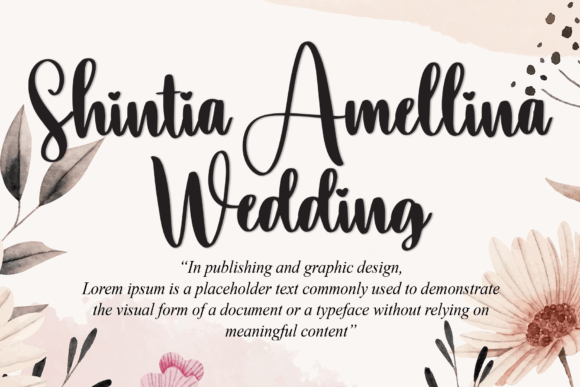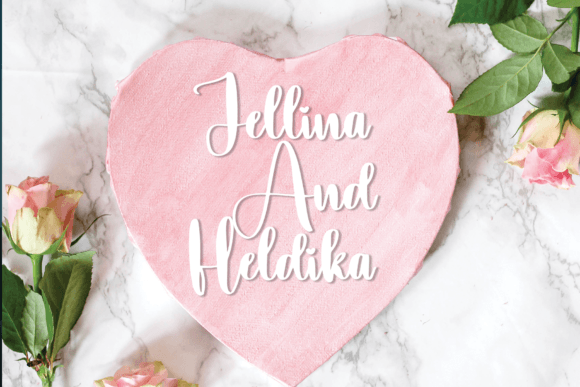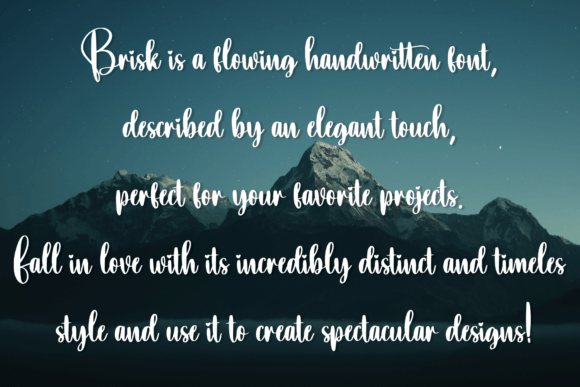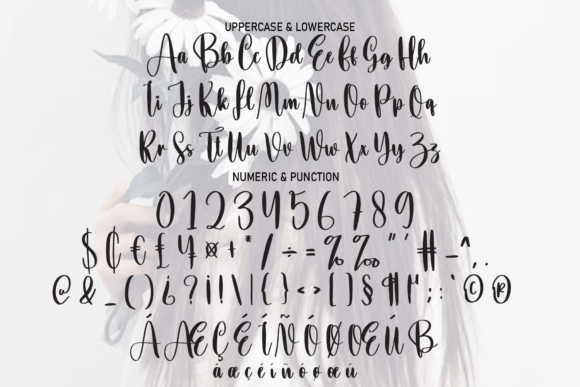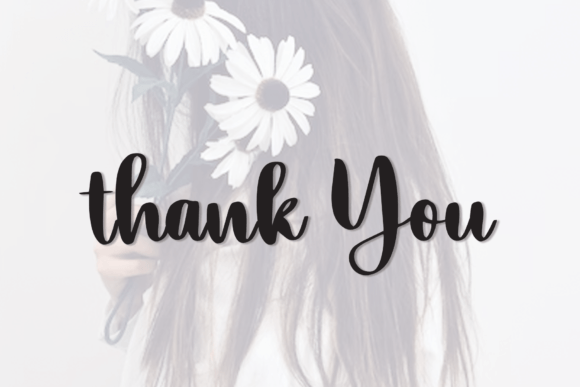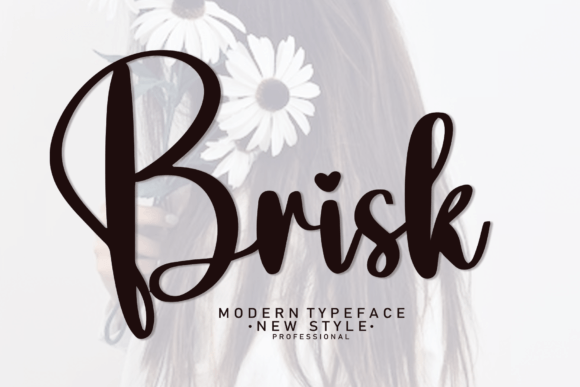
Discover the Elegance of Brisk Font: Elevate Your Designs with a Timeless Touch
Are you on the hunt for a font that adds a touch of elegance and sophistication to your designs? Look no further than the Brisk Font. This stunning, flowing handwritten font is characterized by its elegant touch, making it perfect for a wide range of projects. From crafting beautiful branding materials to designing eye-catching posters, Brisk Font is sure to leave a lasting impression.
The Distinctive Style of Brisk Font
What sets Brisk Font apart from other fonts is its incredibly distinct and timeless style. The elegant flow of the letters, combined with a delicate touch, creates a visually appealing aesthetic that captures the eye. Whether you’re working on a modern design project or a more traditional one, Brisk Font’s versatility ensures it will complement your work beautifully.
Brisk Font’s adaptability makes it an excellent choice for various design projects. Here are a few ideas to get you started:
- Branding and Logos: Create a memorable brand identity with Brisk Font. Its elegant style is perfect for luxury brands, boutiques, and creative agencies looking to stand out.
- Posters and Flyers: Add a touch of sophistication to your promotional materials. Brisk Font is ideal for designing eye-catching posters, flyers, and brochures that demand attention.
- Wedding and Event Invitations: Make your special day even more memorable with beautifully designed invitations featuring Brisk Font. Its elegant style is sure to impress your guests.
- Packaging: Elevate your product packaging with Brisk Font. Its unique style will help your product stand out on store shelves.
Why Choose Brisk Font?
With so many fonts available, why choose Brisk Font for your next project? Here are a few compelling reasons:
- Unique Style: Brisk Font boasts a distinctive style that will set your designs apart from the competition.
- Elegant Touch: Add a touch of sophistication and elegance to your designs with Brisk Font’s flowing script.
- Versatility: Brisk Font is versatile enough to be used in a wide range of projects, from modern to traditional designs.
- Easy to Read: Despite its elegant style, Brisk Font remains easy to read, making it perfect for body text and headings.
Tips for Using Brisk Font Effectively
To get the most out of Brisk Font, here are a few tips to keep in mind:
- Pair with Complementary Fonts: Combine Brisk Font with simpler fonts to create visual interest and hierarchy in your designs.
- Experiment with Colors: Brisk Font looks stunning in a variety of colors. Experiment with different hues to find the perfect match for your project.
- Pay Attention to Spacing: Ensure your text is easy to read by paying attention to spacing and kerning.
Brisk Font is a beautiful, elegant handwritten font that’s perfect for designers and crafters looking to add a touch of sophistication to their projects. Its unique style, versatility, and ease of use make it an excellent choice for a wide range of design applications. Whether you’re working on a branding project, designing posters, or creating wedding invitations, Brisk Font is sure to elevate your designs and leave a lasting impression.
So why wait? Fall in love with Brisk Font’s timeless style and start creating spectacular designs today!